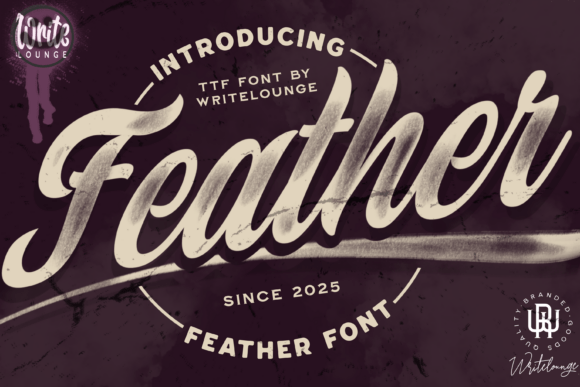
Introducing Feather Font: The Ultimate Brush Script for Creative Projects
Are you looking for a font that can add a touch of warmth, emotion, and effortless charm to your creative projects? Look no further than Feather Font, a smooth and expressive brush script font designed to bring a sense of softness and joy to your designs. With its soft curves, natural letter flow, and modern handwritten character, Feather Font is the perfect choice for a wide range of applications, from uplifting quotes and lifestyle branding to apparel prints and product packaging.
The Unique Characteristics of Feather Font
Feather Font is a unique and versatile script font that blends a retro spirit with a fresh contemporary feel. Its soft curves and natural letter flow give it a smooth and expressive quality that is both elegant and readable. The font’s modern handwritten character adds a touch of personality and charm, making it perfect for designs that require a human touch.
One of the standout features of Feather Font is its ability to stay elegant and readable at any size. Whether you’re using it for a large-scale poster or a small-scale business card, Feather Font is designed to perform beautifully, with clean lines and a confident handwriting energy that is sure to grab attention.
Ideal Uses for Feather Font
Feather Font is an incredibly versatile font that can be used for a wide range of creative projects. Here are some of the ideal uses for Feather Font:
- Inspiring quotes & lettering art: Feather Font is perfect for creating uplifting and inspiring quotes that will motivate and energize your audience.
- Boutique & lifestyle branding: The font’s soft curves and natural letter flow make it a great choice for boutique and lifestyle brands that want to convey a sense of elegance and sophistication.
- Apparel & merchandise: Feather Font is a great choice for apparel and merchandise designs, adding a touch of personality and charm to t-shirts, mugs, and other products.
- Instagram & Pinterest design: The font’s modern handwritten character and clean lines make it perfect for social media designs, including Instagram and Pinterest posts.
- Journals, planners & stationery: Feather Font is a great choice for journals, planners, and stationery designs, adding a touch of elegance and sophistication to your designs.
- Beauty, wellness & candle labels: The font’s soft curves and natural letter flow make it a great choice for beauty, wellness, and candle labels, conveying a sense of natural and organic products.
- Greeting cards & gift designs: Feather Font is perfect for greeting cards and gift designs, adding a touch of personality and charm to your creations.
The Benefits of Using Feather Font
There are many benefits to using Feather Font in your creative projects. Here are just a few:
- Unique and eye-catching designs: Feather Font’s soft curves and natural letter flow make it a great choice for creating unique and eye-catching designs that will stand out from the crowd.
- Elegant and readable: The font’s elegant and readable design makes it perfect for a wide range of applications, from large-scale posters to small-scale business cards.
- Versatile: Feather Font is an incredibly versatile font that can be used for a wide range of creative projects, from inspiring quotes and lettering art to boutique and lifestyle branding.
Tips for Using Feather Font
Here are a few tips for using Feather Font in your creative projects:
- Experiment with different sizes: Feather Font is designed to stay elegant and readable at any size, so don’t be afraid to experiment with different sizes to find the one that works best for your design.
- Play with colors: The font’s soft curves and natural letter flow make it a great choice for designs with a natural and organic feel, so try playing with earthy colors to create a unique look.
- Add texture and patterns: Feather Font is a great choice for designs with texture and patterns, so try adding some texture or patterns to your design to give it a unique look.
Feather Font is a smooth and expressive brush script font designed to bring warmth, emotion, and effortless charm to your creative projects. With its soft curves, natural letter flow, and modern handwritten character, Feather Font is the perfect choice for a wide range of applications, from uplifting quotes and lifestyle branding to apparel prints and product packaging. Whether you’re a designer, artist, or DIY enthusiast, Feather Font is a great choice for adding a touch of personality and charm to your designs.